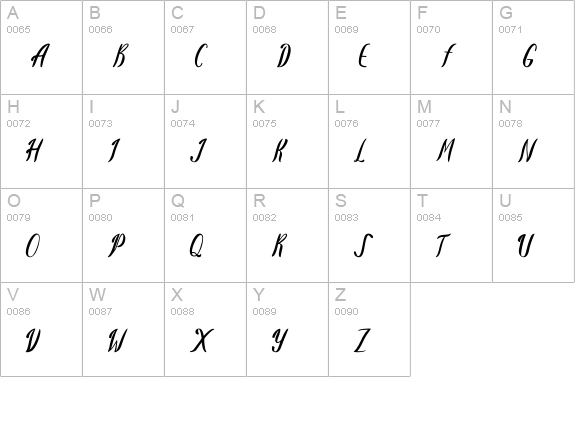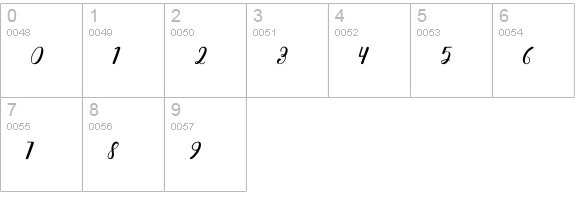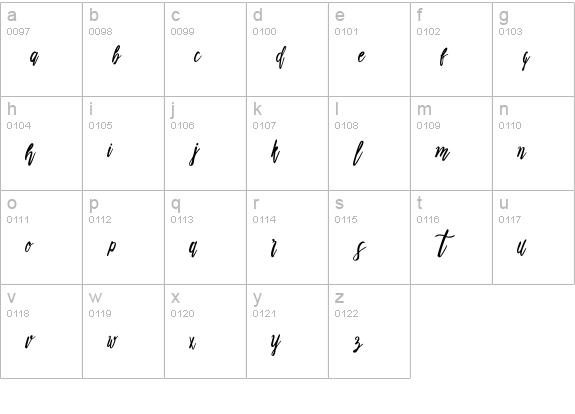
Callera Font Details
Callera font is a modern and elegant typeface that exudes sophistication and versatility. Its sleek lines and clean curves make it perfect for a wide range of design projects, from branding to editorial layouts. The font features a balanced combination of sharp edges and smooth curves, creating a contemporary yet timeless look. What sets Callera font apart is not just its design, but also its availability. This premium font is offered for free download exclusively at FontsMarket.com, making it accessible to designers and creatives looking to elevate their projects without breaking the bank. With its wide range of weights and styles, Callera font is sure to become a go-to choice for anyone seeking a stylish and professional typeface.